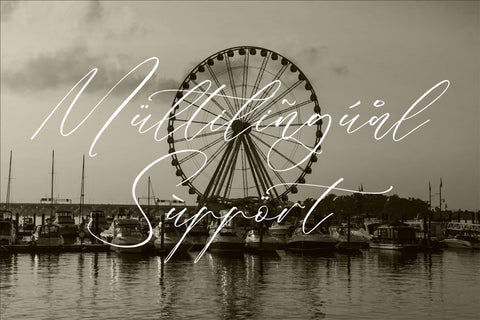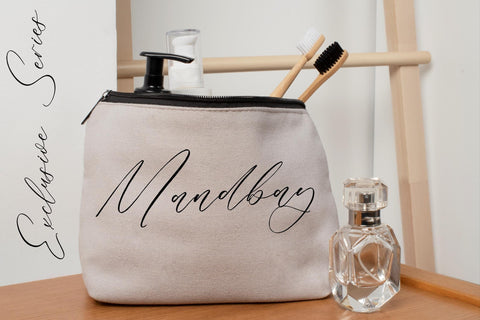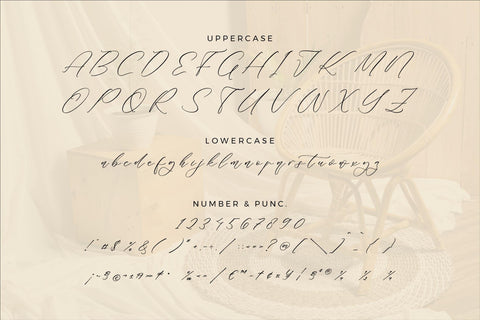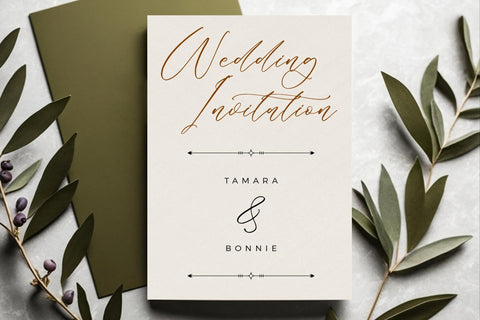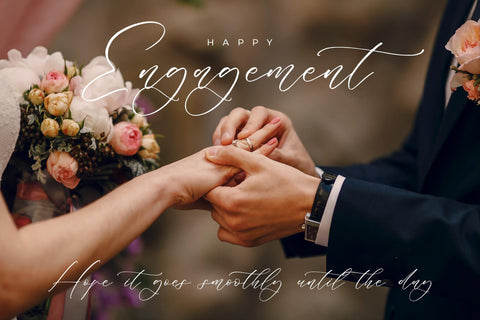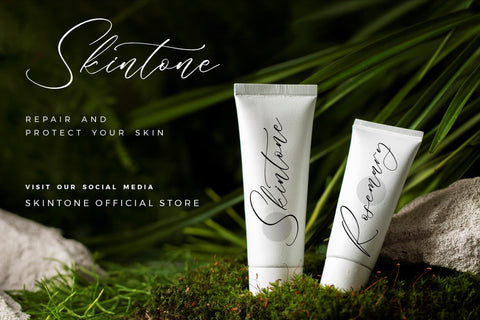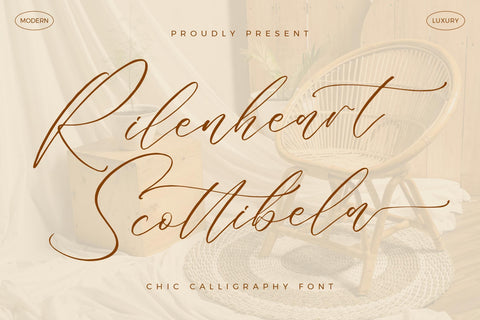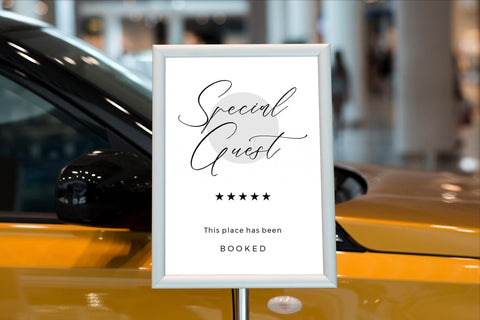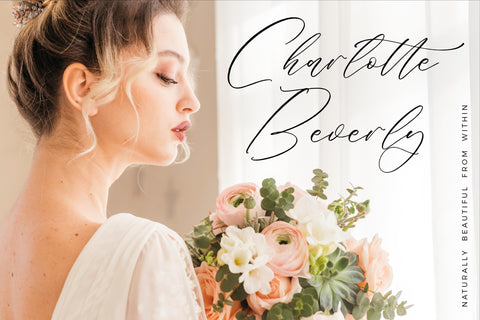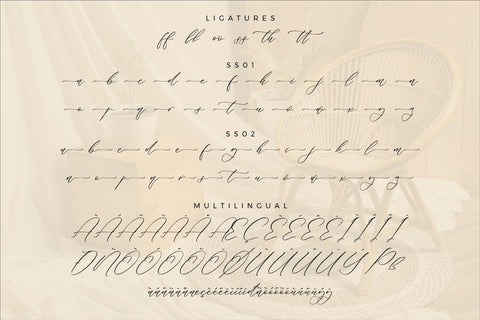
Rilenheart Scottibela - Chic Calligraphy Font
Proudly present Rilenheart Scottibela - Chic Calligraphy Font , created by Storytype,
A luxury script that has own unique style & modern look.